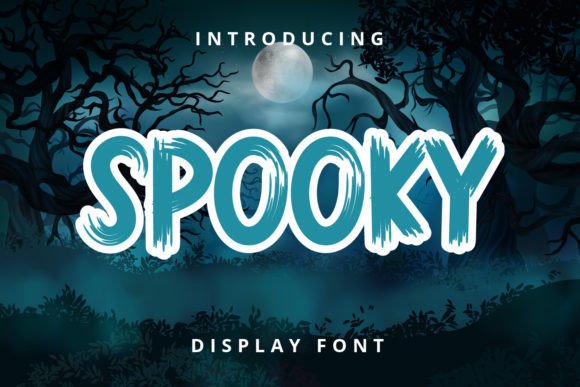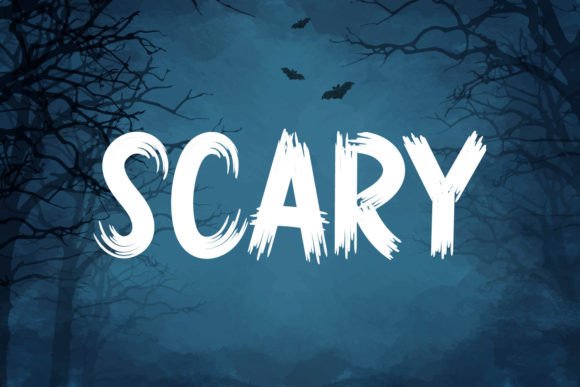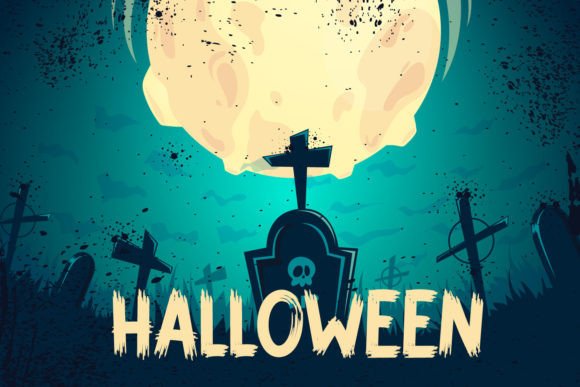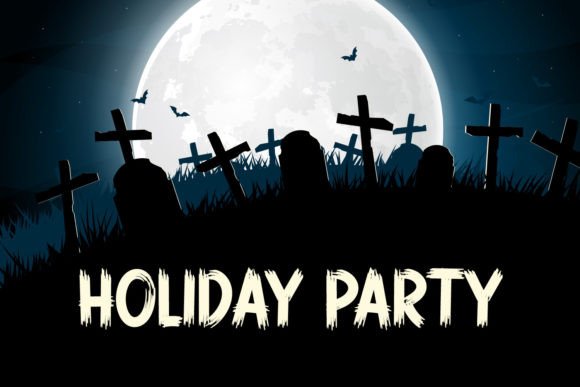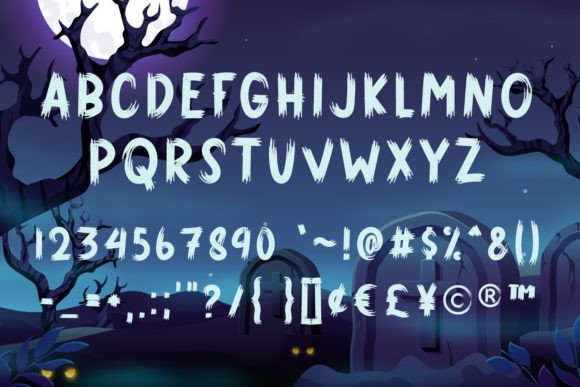
Spooky Font
Spooky is a unique halloween font and hanwritten brush display font. It works well for various design ideas that require a fun, cool touch. Your options are limitless.